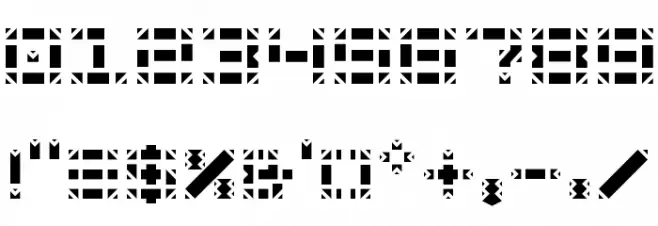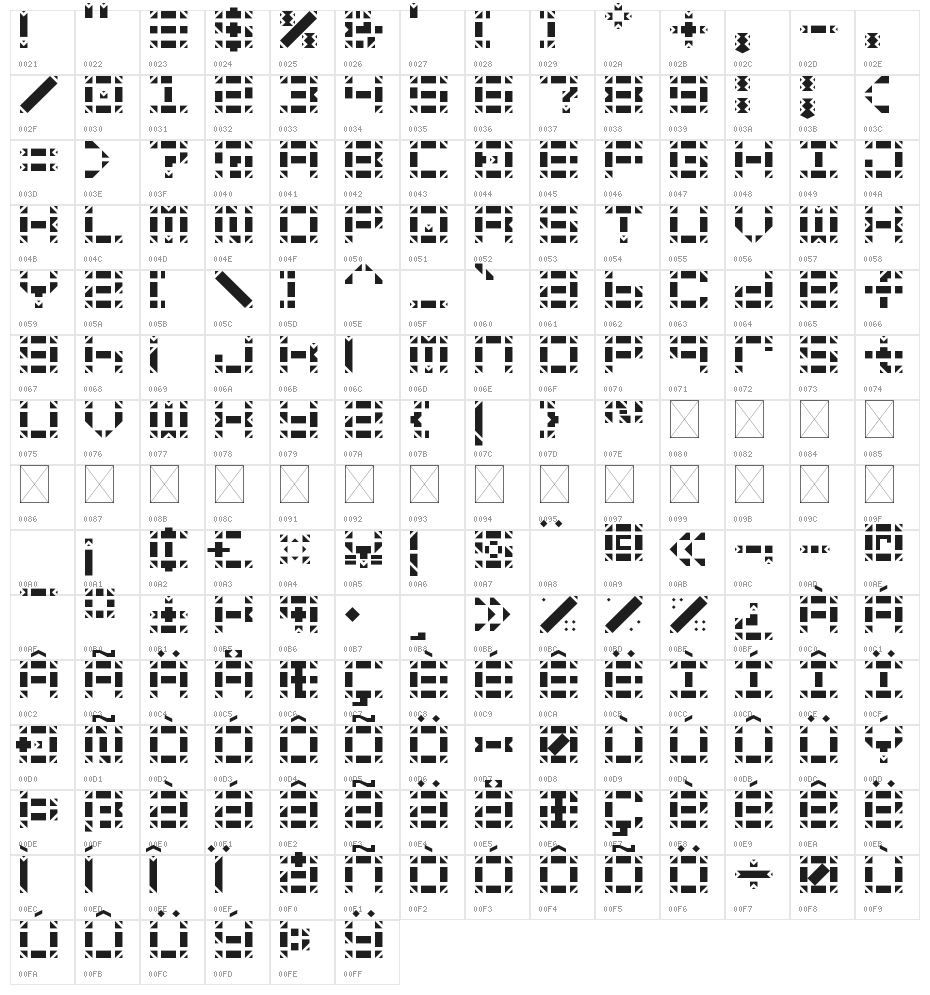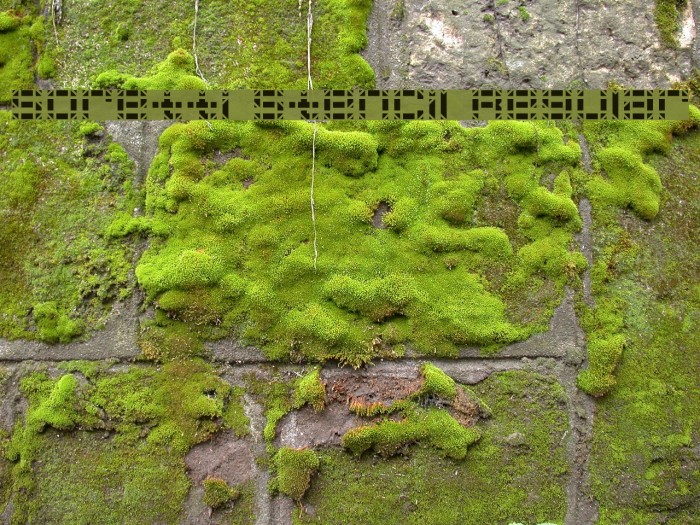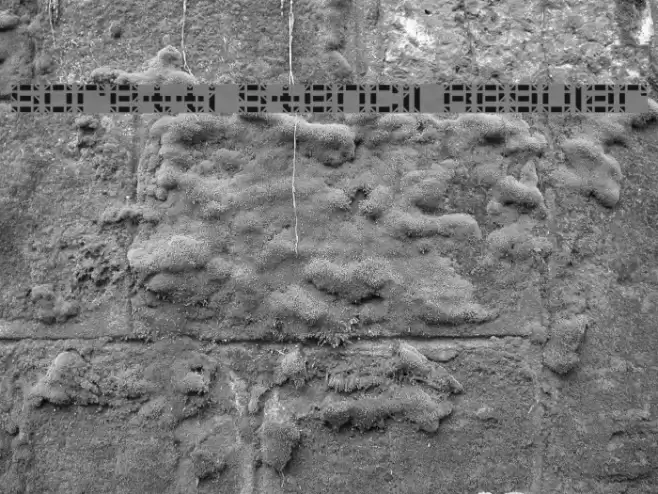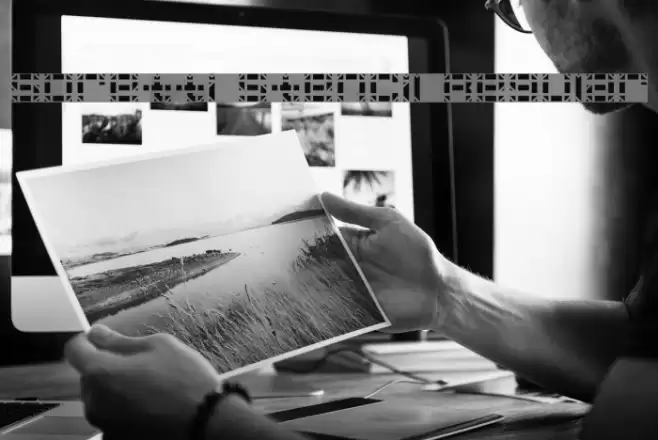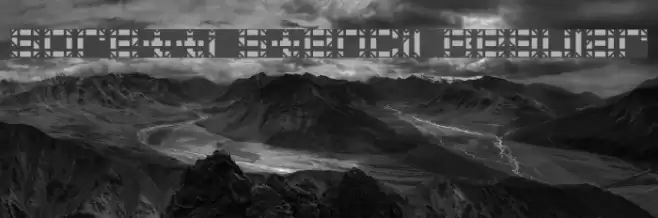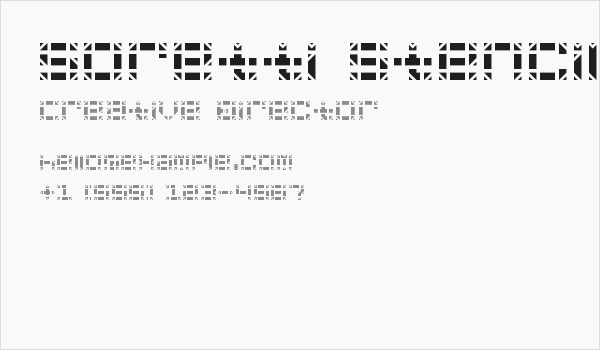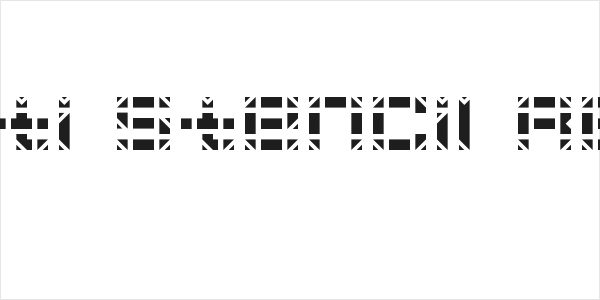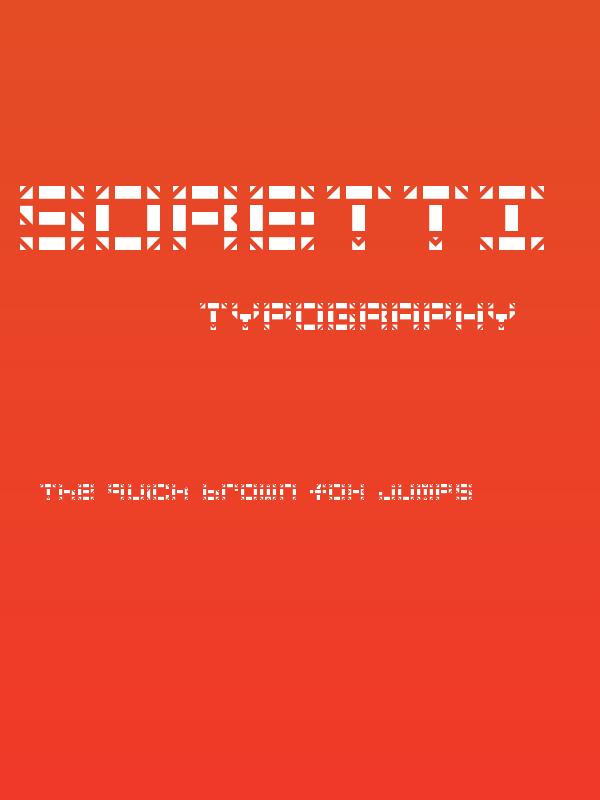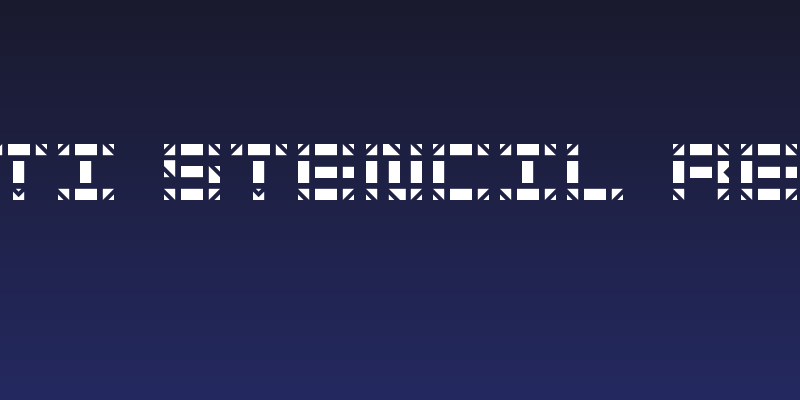
Soretti Stencil Regular Font
Soretti Stencil Regular Description
This font features a unique stencil design with geometric cutouts, creating a modern and industrial look. The characters are composed of bold, angular shapes with consistent spacing, giving it a structured and uniform appearance. The stencil style adds a sense of ruggedness and utilitarianism, making it stand out in various design contexts. The uppercase and lowercase letters maintain a cohesive style, while the numerals and special characters follow the same geometric pattern. This font is ideal for projects that require a bold statement with a contemporary edge.
| Proposed Projects | Ideal for branding, posters, signage, and any project needing a strong, modern visual impact. |